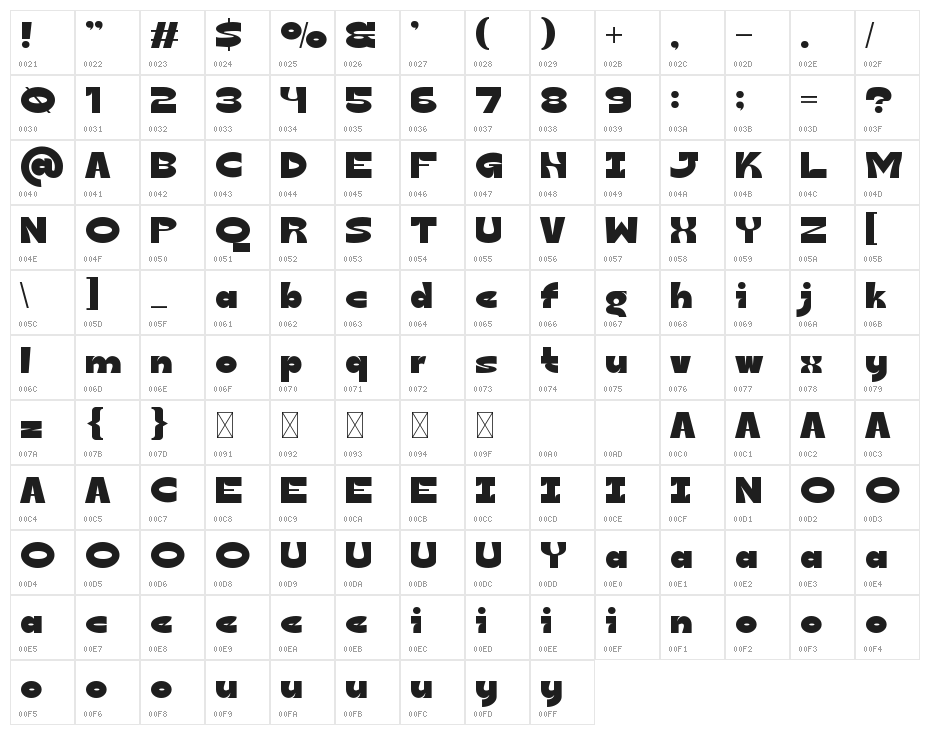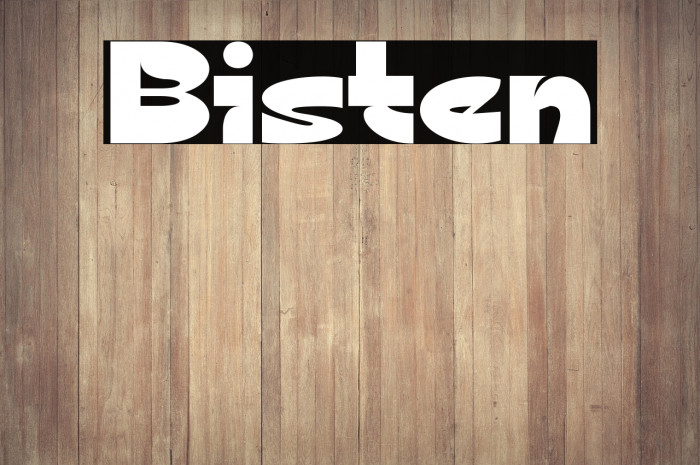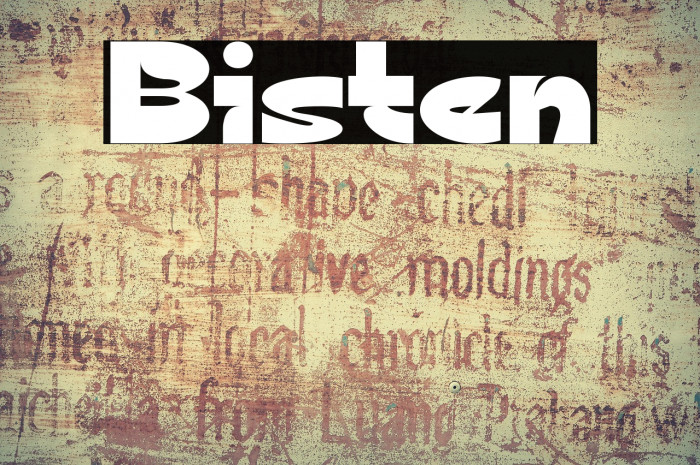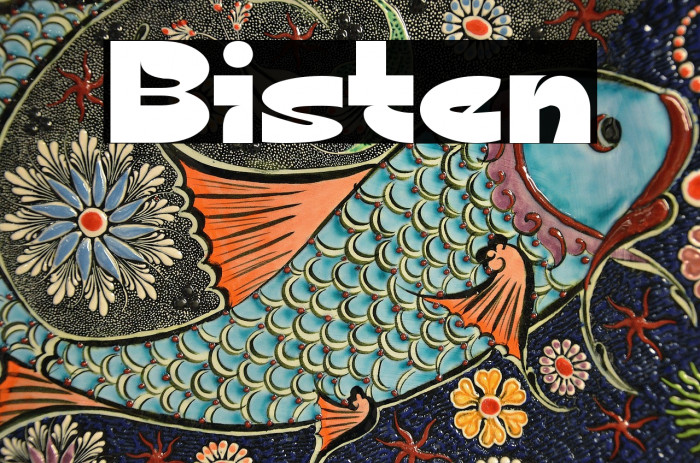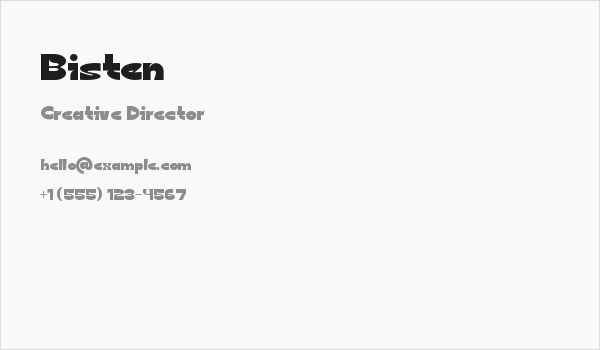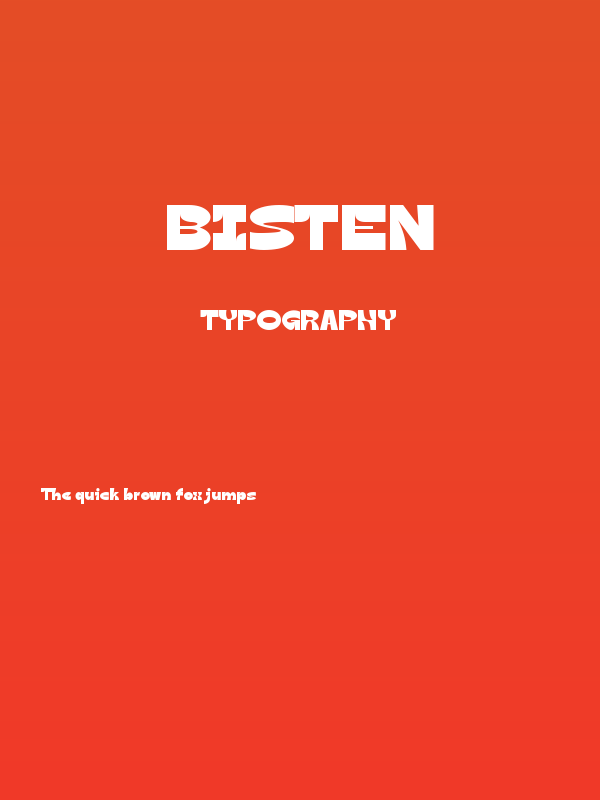
Bisten Font
This font features a bold and dynamic design with a strong presence. The characters are crafted with thick strokes and unique geometric shapes, giving it a modern and artistic flair. The uppercase letters are particularly striking, with angular cuts and bold lines that create a sense of movement and energy. The lowercase letters maintain a consistent style, offering a playful yet robust appearance. Numbers and special characters are equally bold, ensuring uniformity across all elements. This font is ideal for projects that require a strong visual impact and a contemporary aesthetic.
A bold, geometric font with a modern and artistic style.
- Proposed Projects: Ideal for branding, posters, headlines, and any design needing a strong visual impact.